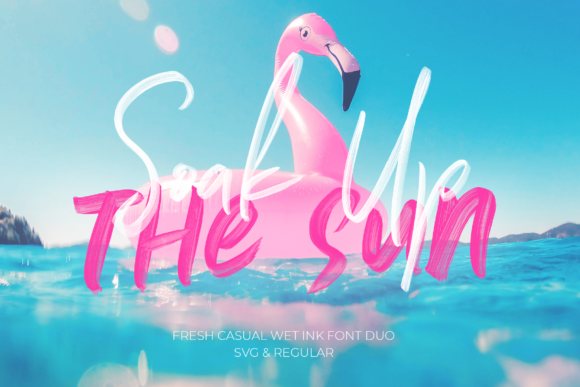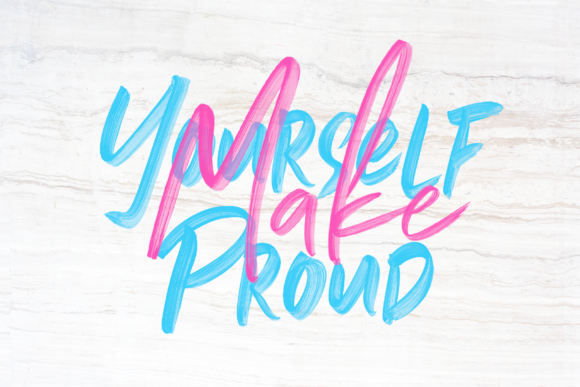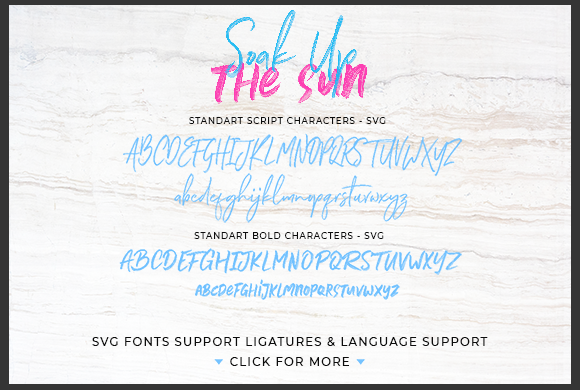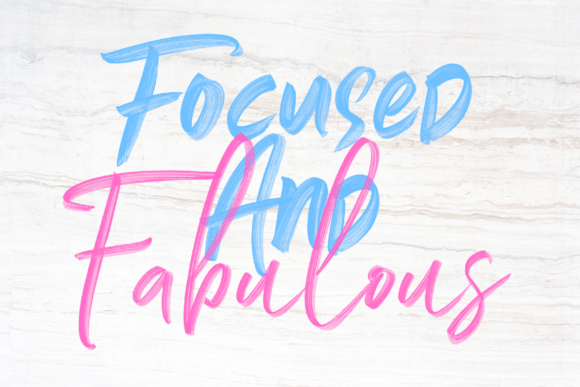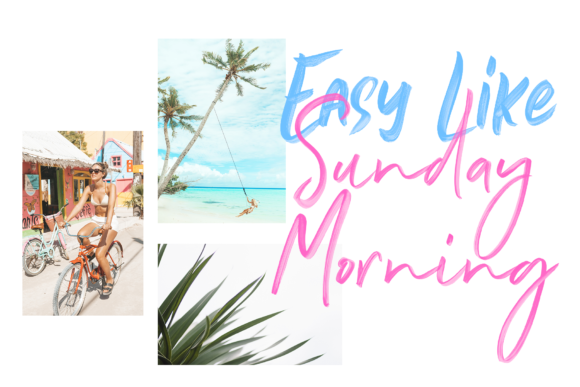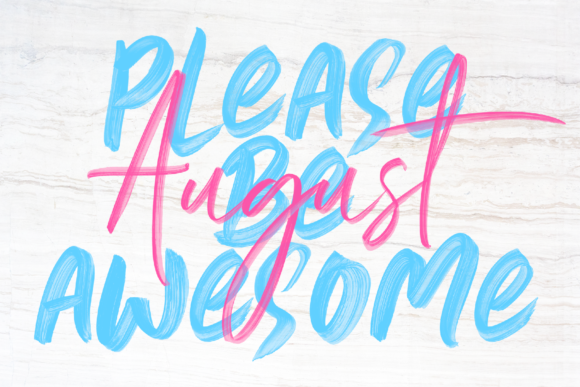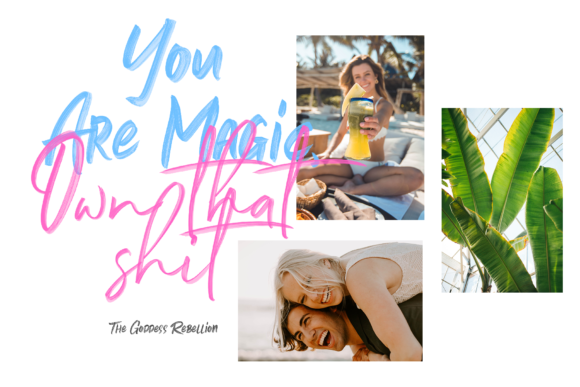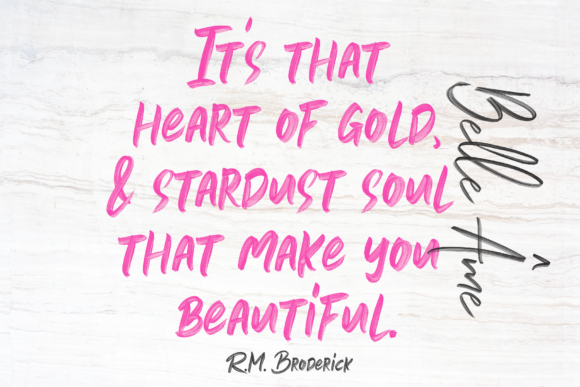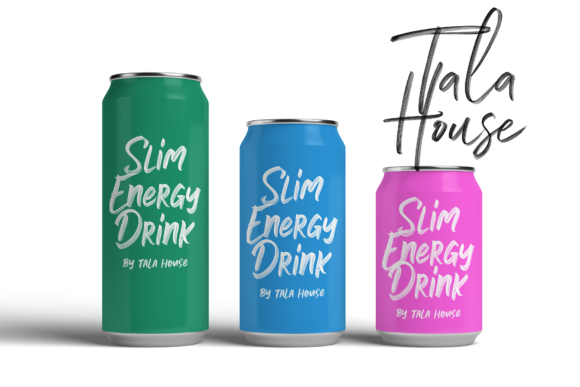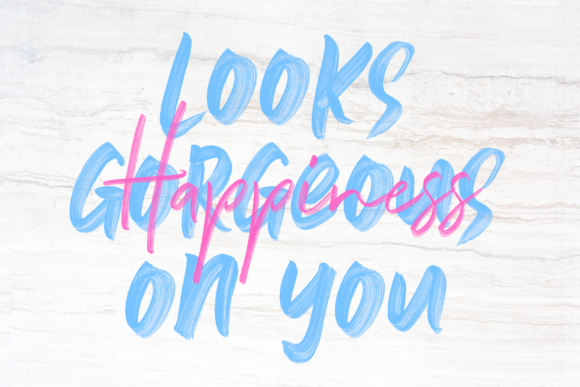
Soak Up the Sun Duo Font
About Soak Up the Sun Duo Font
Enjoy the sun, the sand and the sea!
Immerse yourself on the beach this summer with our new Soak Up The Sun Font collection. Introducing a textured handwritten SVG Font with wet ink effects. Feel the handmade love of this product. Soak Up The Sun was created manually, turning it into digital with high resolution.
Soak Up The Sun Duo is a combination of Signature and Bold styles. It’s great for logos, hand-painted lettering, printed quotes, badges, insignia, packaging, headlines, posters, and much more!
Soak Up The Sun also provides a vector version of both SVG fonts.
1. Soak Up The Sun – SVG
Use this signature style version to create natural high-resolution brush strokes.
2. Soak Up The Sun Bold – SVG
Caps & Small-Caps handwritten versions with thick strokes with very detailed textures.
3. Soak Up The Sun Script
Conventional font signature style with original brush strokes thus giving the impression of a rough stroke.
4. Soak Up The Sun-Bold
A handwritten Caps & Small-Caps with a thick stroke with a special texture.